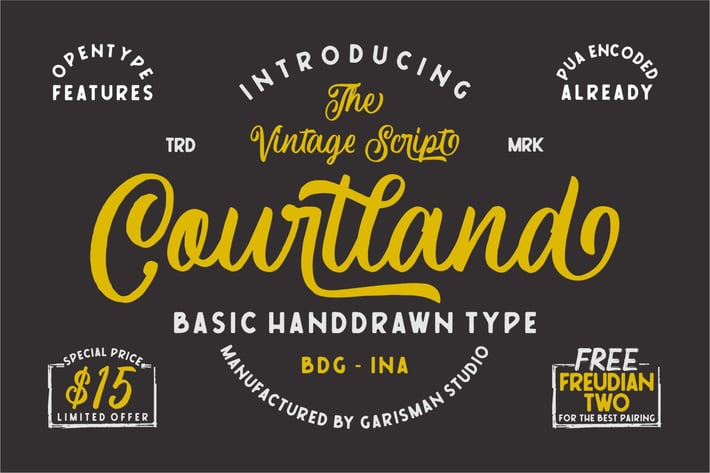
Courtland | Retro Font
Introduce a vintage font: Courtland
One name originating from Canada greatly inspired the birth of this vintage font. With the Opentype feature: standard ligature, stylistic alternate (specifically for lowercase), Stylistic Sets 01 through 06 with different styles in each letter. Courtland is perfect for use in logotypes, vintage logos, posters, labels, packaging, headlines, t-shirts, and other designs.
Make your writing style very easy to use this Courtland font
Other interesting features:
Opentype Feature (Ligature, Stylistic Alternate, Stylistic Set 01-06)